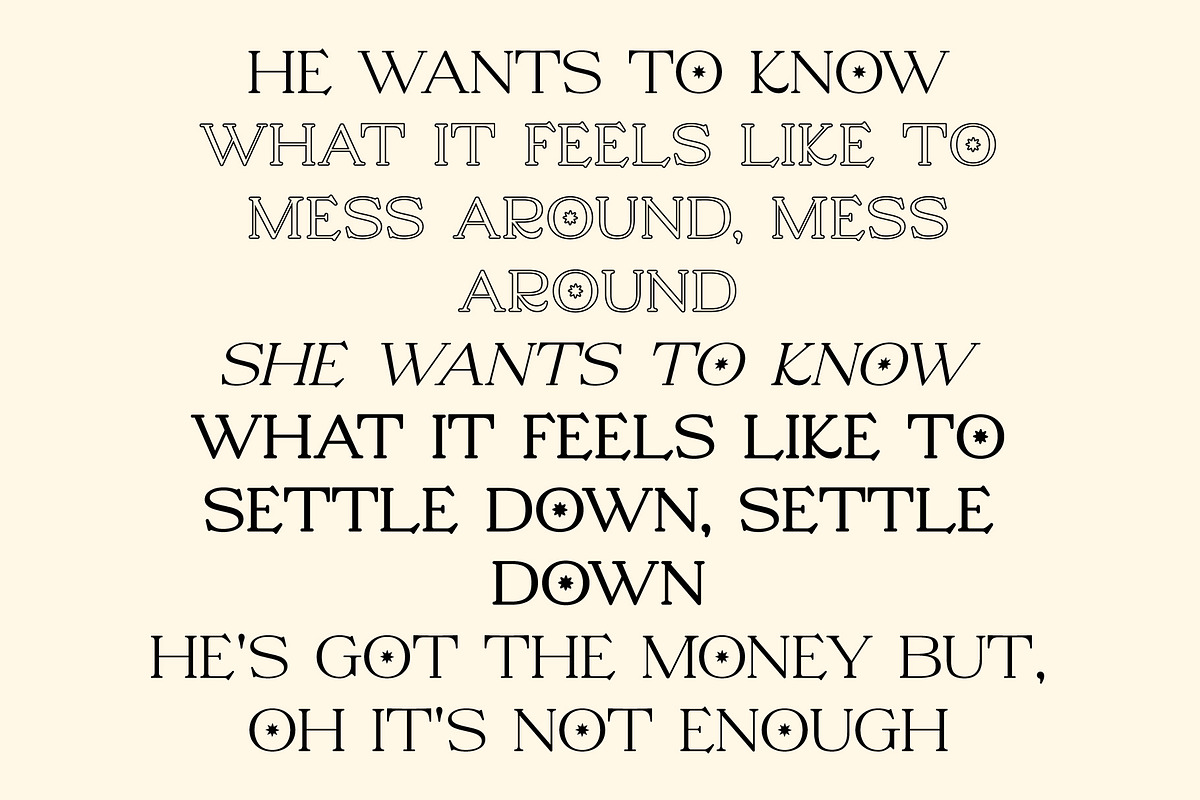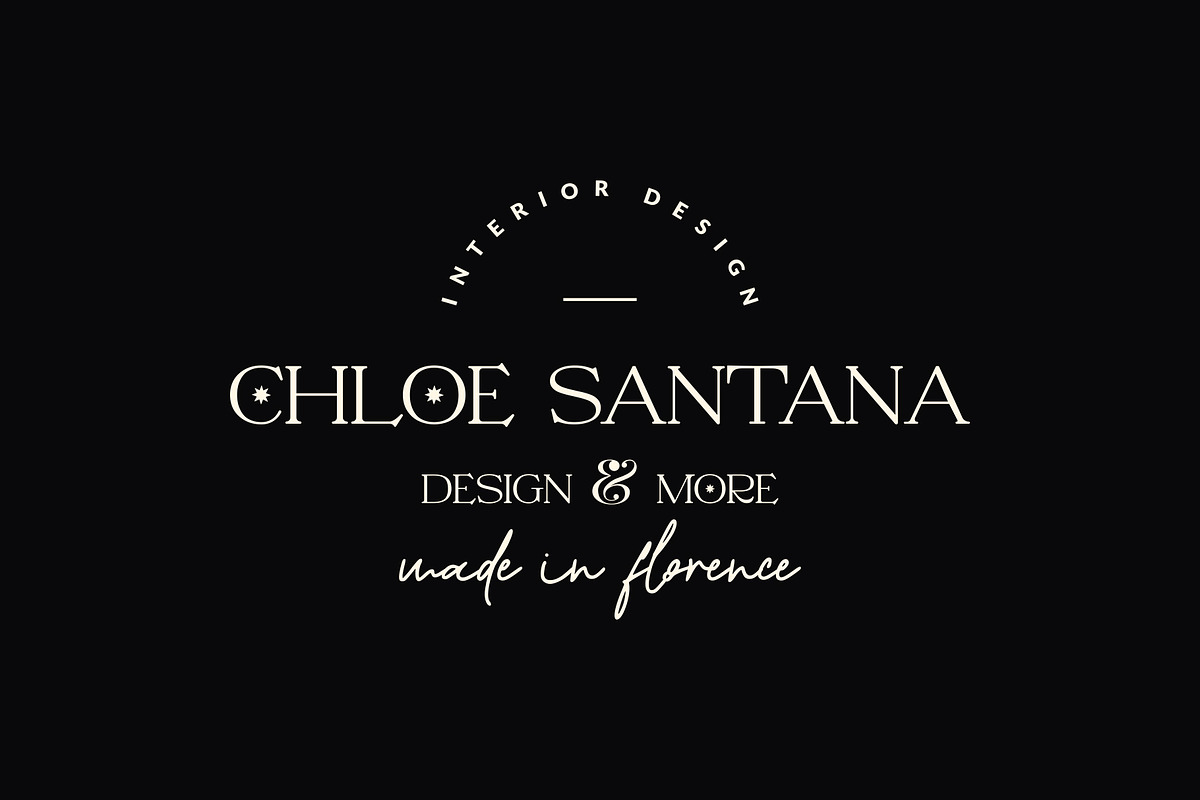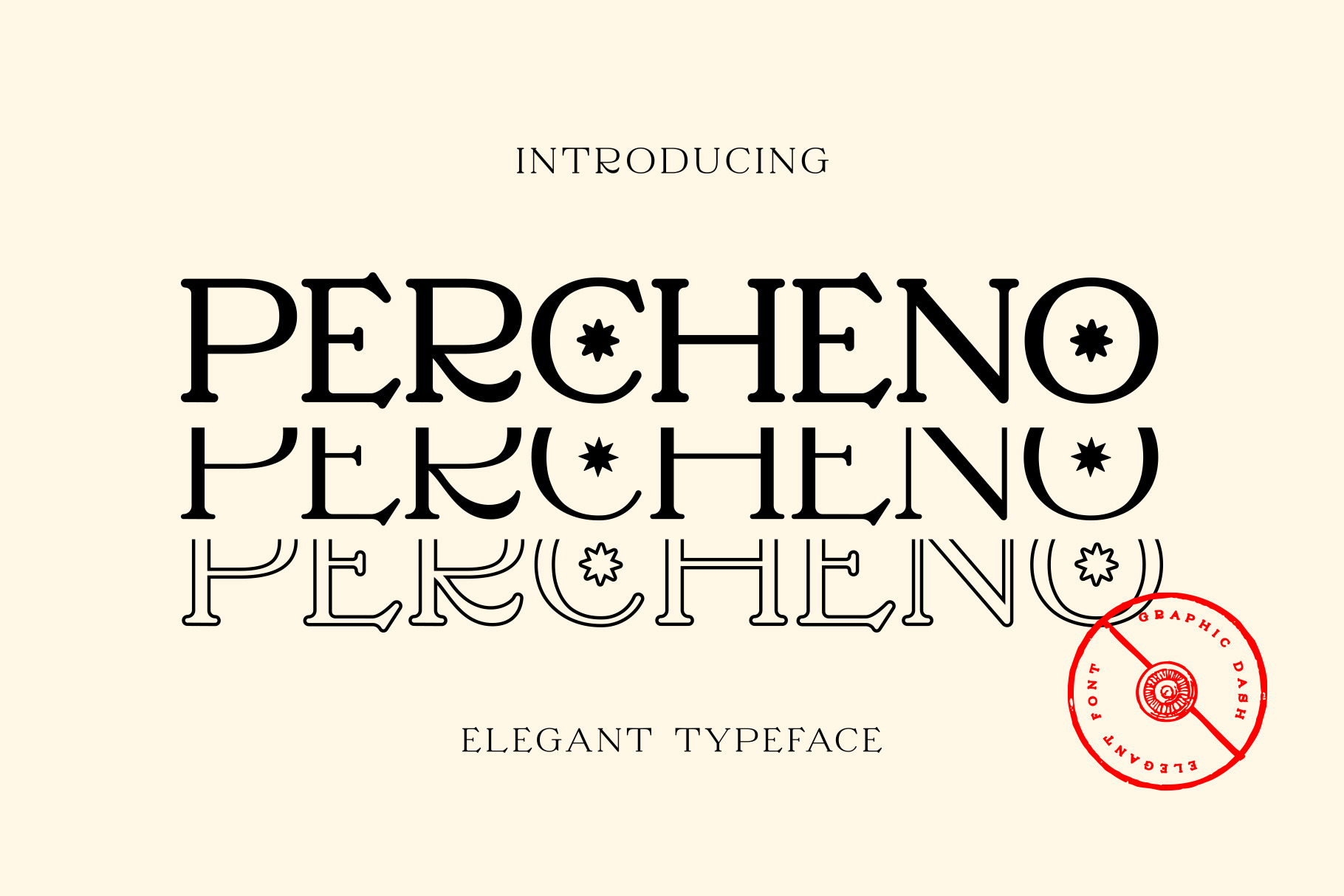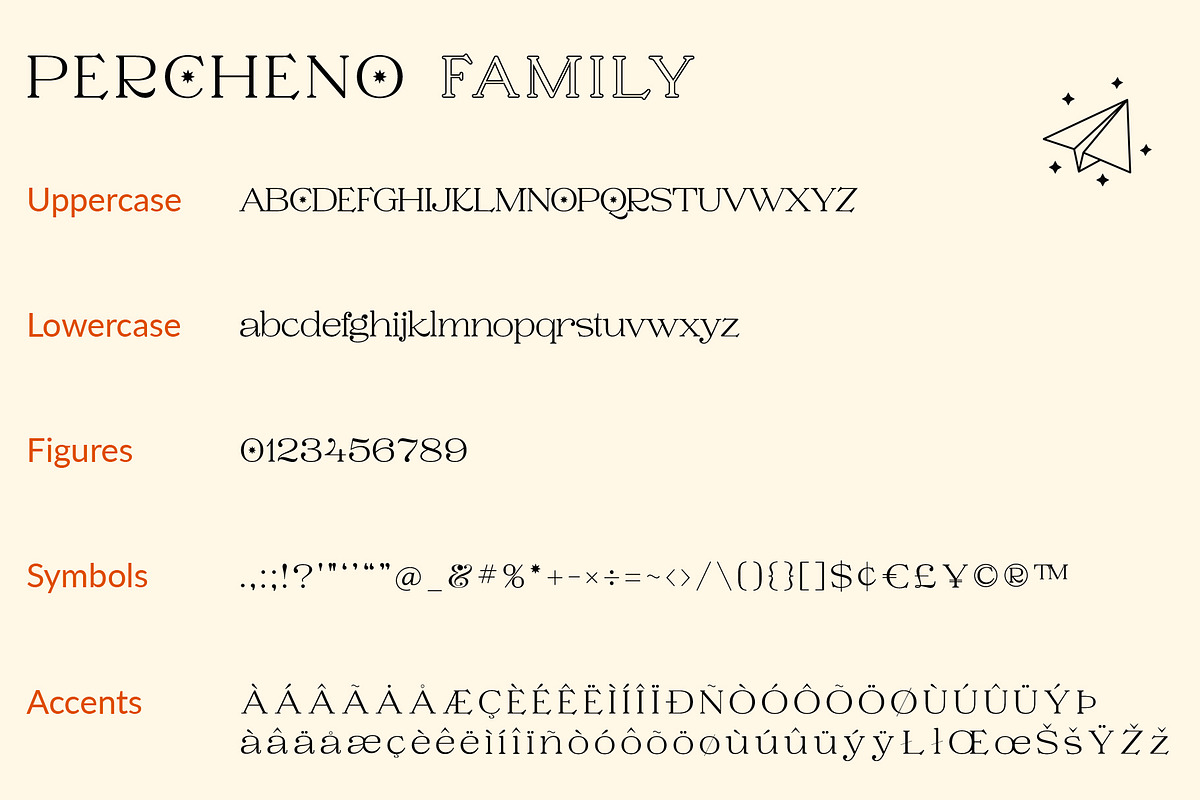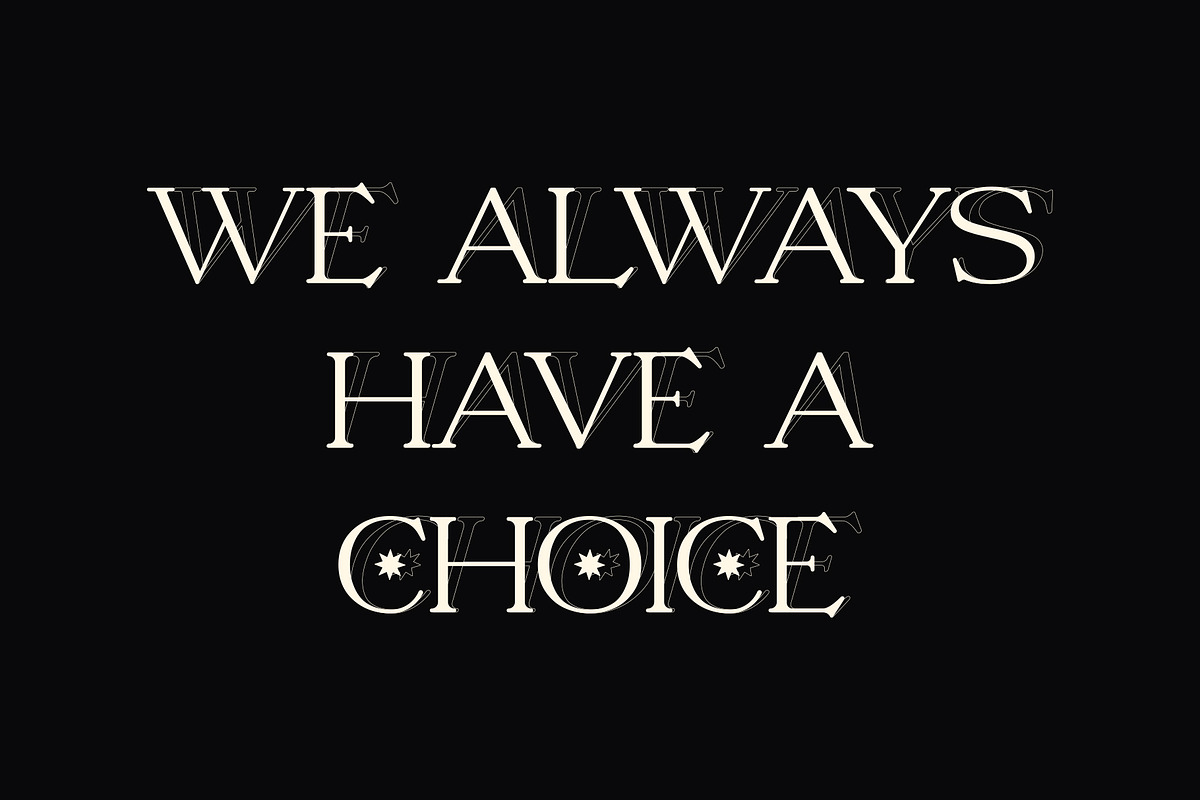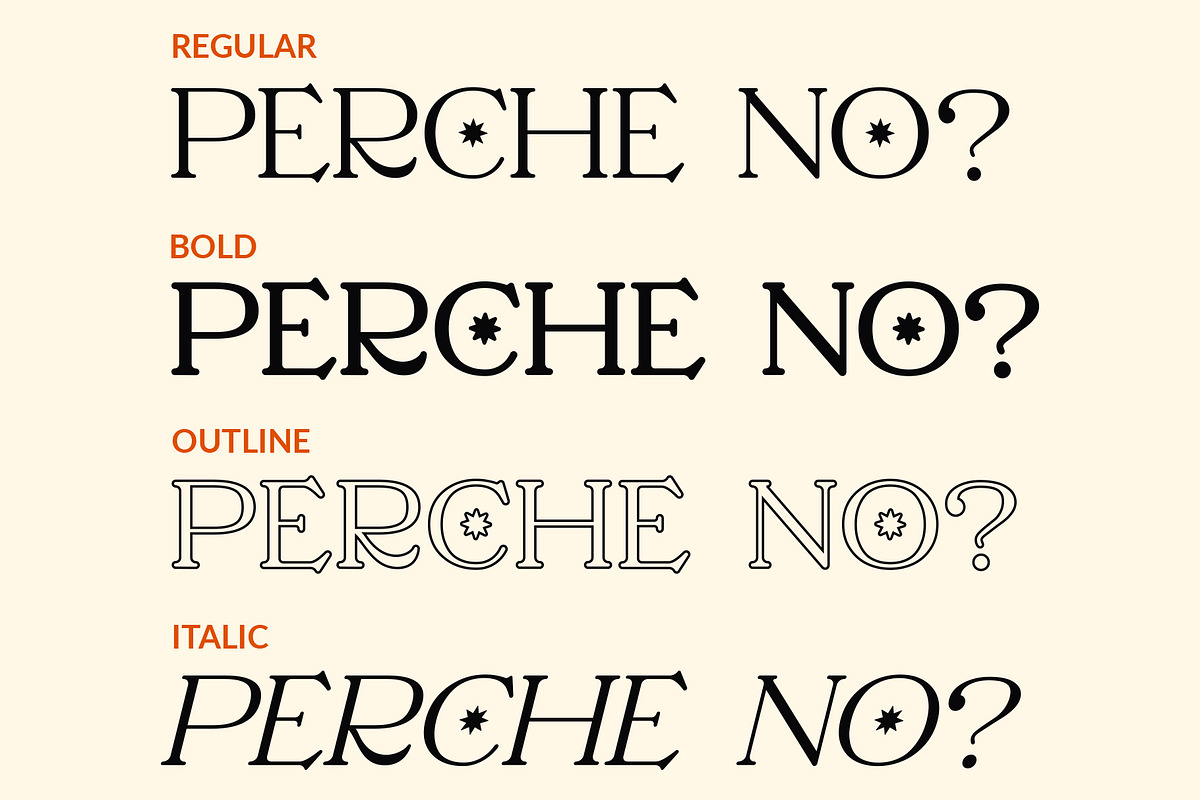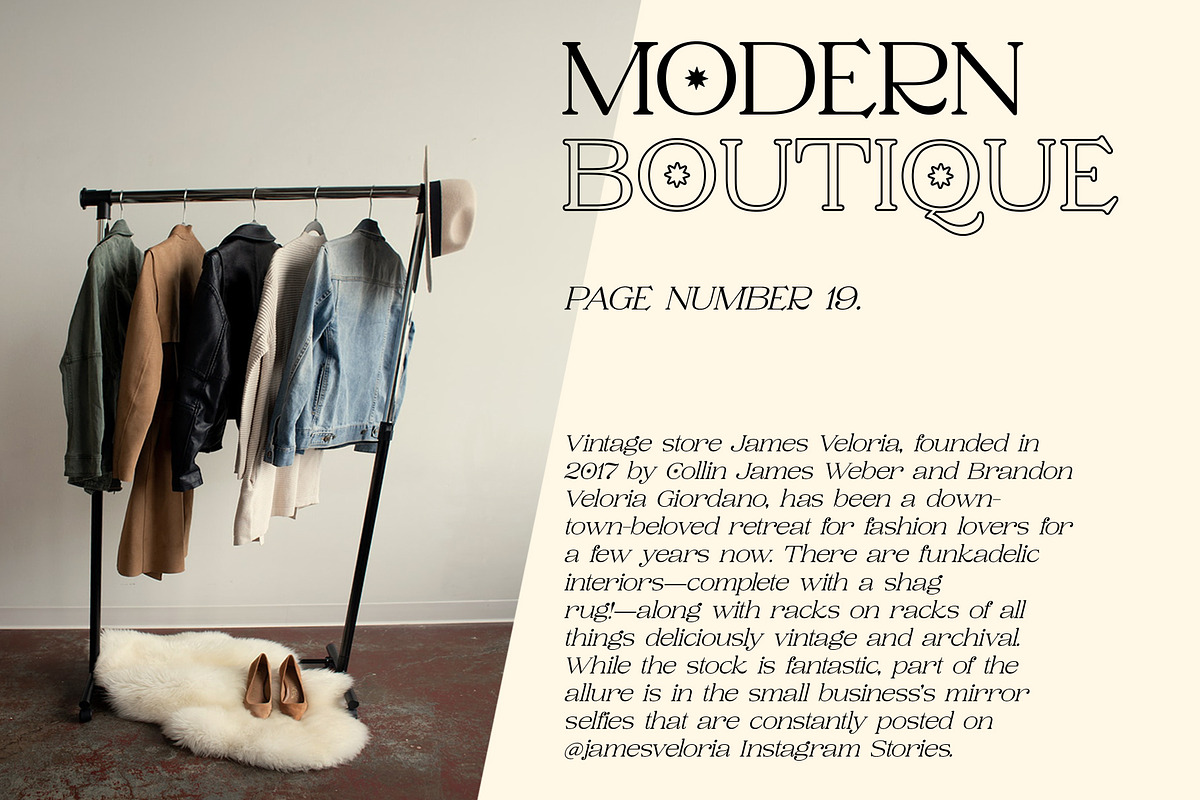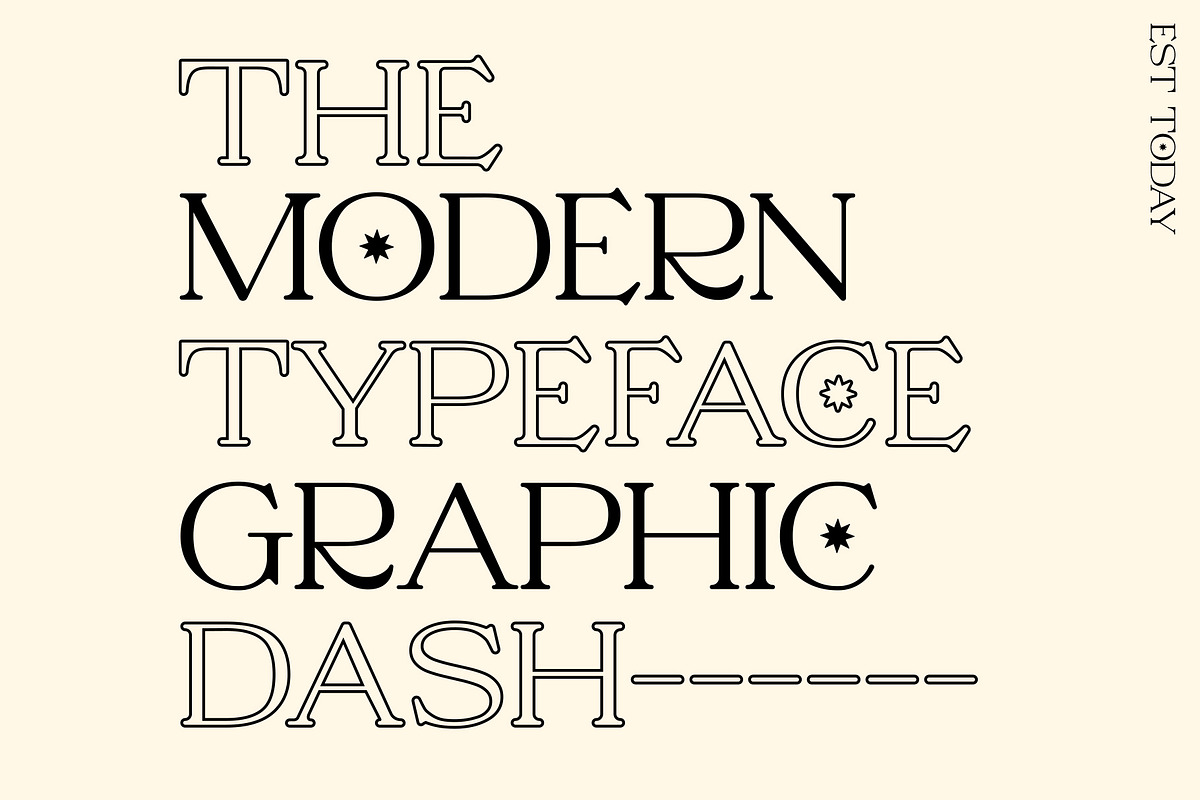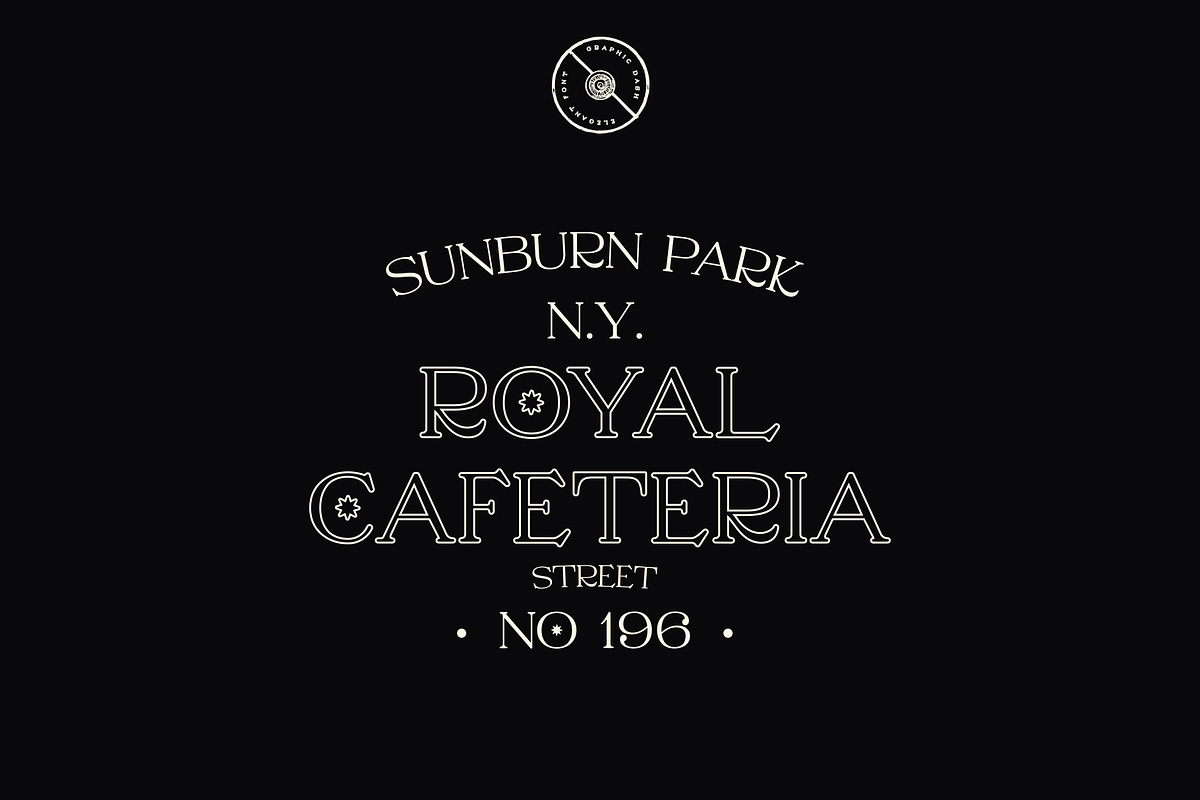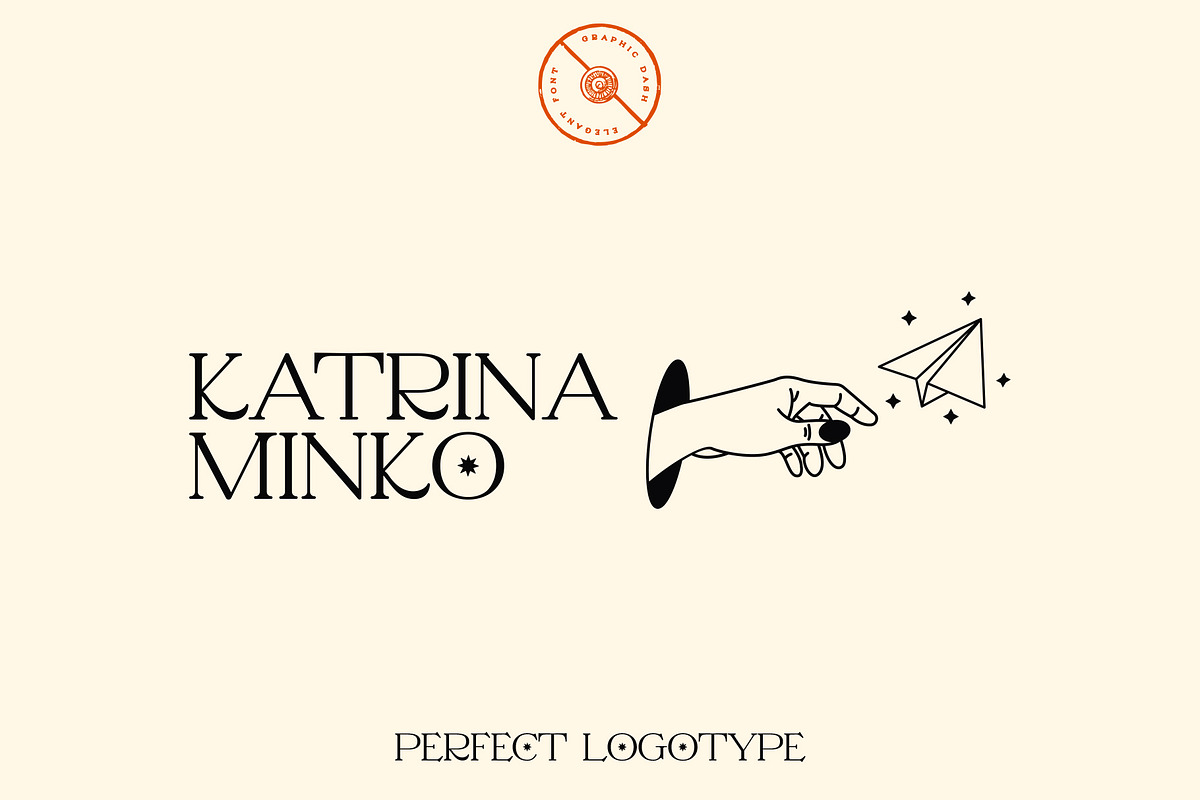
Percheno Elegant/Classy Font
Percheno - Elegant Ligatures Font
Percheno is a versatile, classy, and elegant font. It has a unique style, and supports multilingual languages.
Percheno Font comes with 4 styles: Regular, Italic, Bold & Outline, perfect for logos, badges, typography and any type of designs :)
- Uppercase/Lowercase, Numbers, Punctuation & Multilingual support.
- Regular, Bold, Italic, Outline